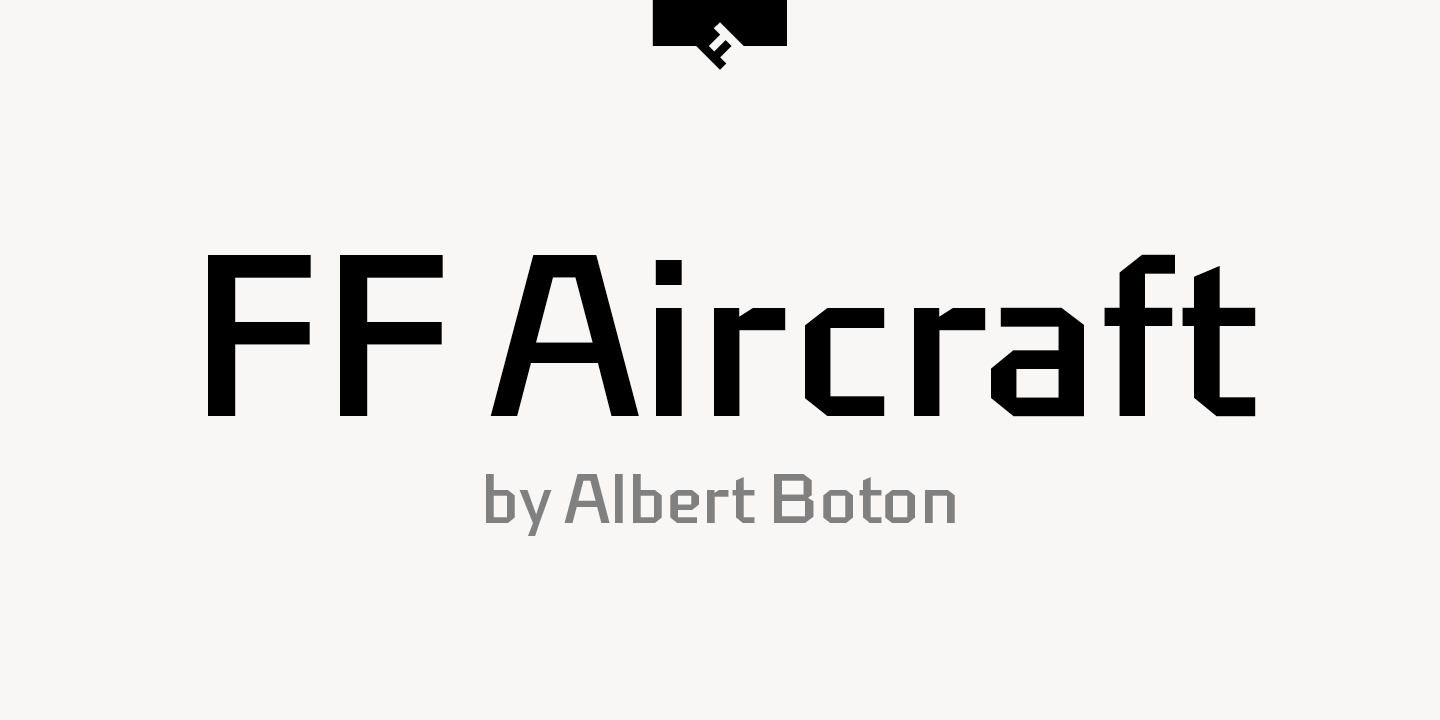
FF Aircraft Font is perfect for aviation industry branding, airline company logos, aircraft manufacturer materials, pilot training academy signage, aerospace engineering presentations, flight simulation interfaces, aviation museum displays, and military air force communications. This dynamic typeface excels in airport terminal signage, aircraft maintenance manuals, aviation trade show materials, and flight school marketing campaigns.
What makes FF Aircraft Font exciting is its aerodynamic precision and high-altitude sophistication that captures the engineering excellence and technological advancement of modern aviation and aerospace innovation. The font features streamlined letterforms, flight-inspired spacing, and aeronautical character that evokes the power of jet engines and the precision of cockpit instrumentation. Its technical authority and aviation authenticity make every word feel ready for takeoff.
FF Aircraft Font family includes various aviation styles: Regular, Bold, Light, Technical, Condensed, and Jet variations. Each style maintains the font's signature aeronautical character while providing designers with comprehensive options for creating aviation brand identities and aerospace typography that resonates with pilots, engineers, and aviation enthusiasts seeking professional flight experiences.
Aviation professionals choose FF Aircraft Font Free Download for projects requiring aeronautical credibility and flight industry appeal. The font's versatility makes it suitable for both commercial aviation applications and military aerospace materials, ensuring professional results across aviation websites, technical documentation, and aerospace industry communications.